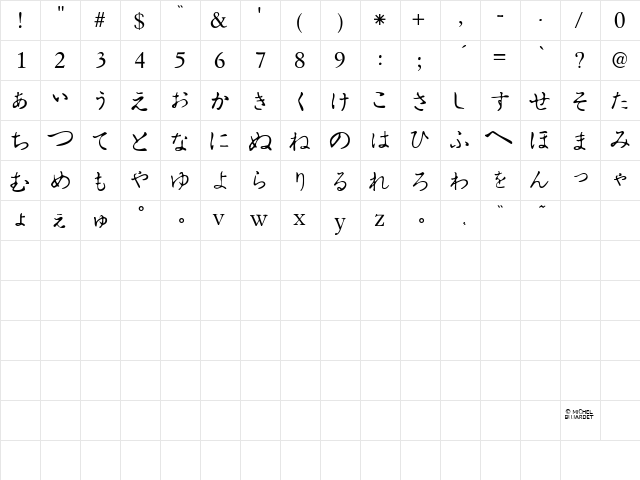
Hiragana Tryout Regular
Design Context for Hiragana Tryout Typeface
Hiragana Tryout takes a measured approach to typography — its balanced proportions and neutral character make it a reliable workhorse for both digital and print work.